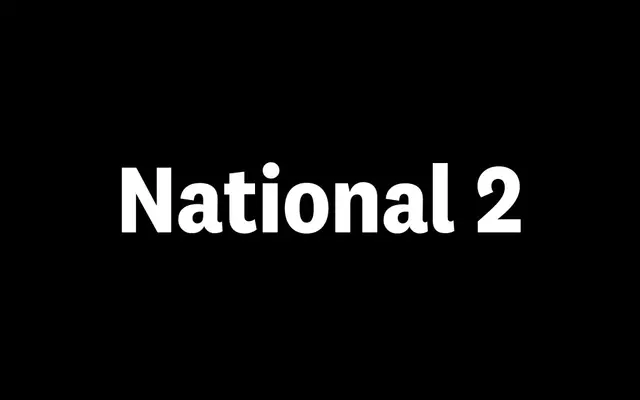
National 2 Narrow
Klim Type Foundry · Kris Sowersby · 2017
The narrow cut of National 2, a gently tightened Akzidenz-rooted grotesque for editorial and brand work where space is short.
The narrow cut of National 2 by Kris Sowersby, the widest of the three condensed widths added in the redrawn National 2 system. Sixteen styles run from Thin to Black with paired italics, redrawn and remastered with cleaner curves and better weight distribution. Sits well in editorial and brand work that needs a slightly tighter sans without going as compact as Condensed or Compressed, while keeping the family's Akzidenz-era detailing intact.
Klim classifies it as Modern: Lineal/Grotesque; the widest of the three new condensed widths added in the 10-year overhaul of National, drawing on Akzidenz-Grotesk era detailing.